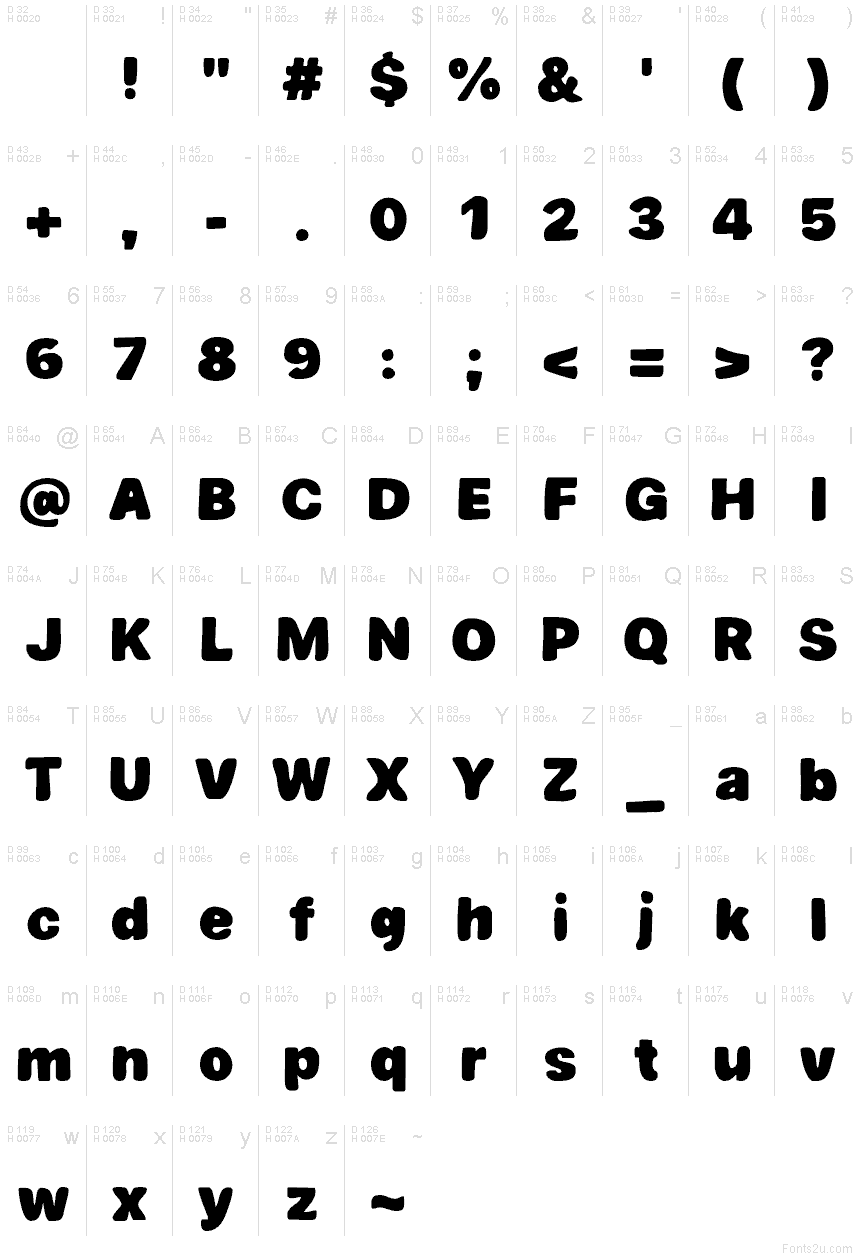
Big Monday
Big Monday font by Origin Type is a free cartoon display typeface with soft, chunky shapes that look like they’ve been puffed up with air. The rounded forms and slightly wobbly rhythm give every word a bouncy, hand-drawn charm, as if it were scribbled with a thick marker on a school notebook. Letters sit close and cozy, creating bold, in-your-face headlines that still feel friendly and approachable.
Using Big Monday, your projects instantly pick up a playful, kid-forward energy that shines on children’s book covers, birthday invitations, snack packaging, YouTube thumbnails, app splash screens, and stickers. This free font thrives at large sizes where its bubbly curves can really show off. Pair Big Monday with a simple, narrow sans serif for body text to keep things readable while letting the chunky cartoon letters do the loud, happy talking.